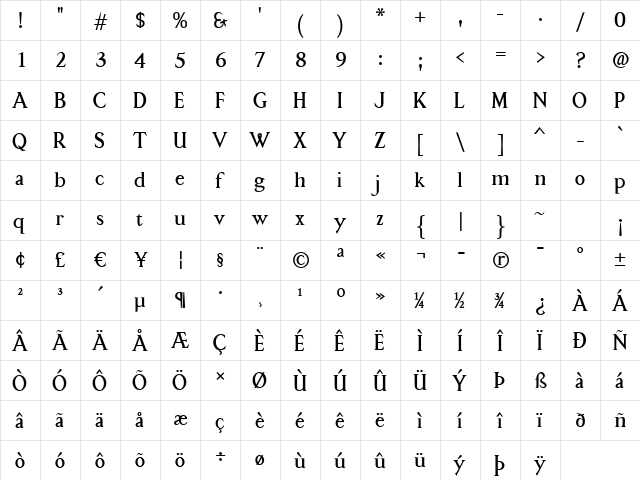
Anarcharsis Basic LF Bold
Design Context for Anarcharsis Basic LF Typeface
Anarcharsis Basic LF offers clean, dependable letterforms without strong stylistic allegiance, making it a practical choice for designers who need flexibility. Its bold stroke weight gives it real presence on the page.
Pro Tip: Pair Anarcharsis Basic LF with a font of contrasting weight or personality to build a more expressive typographic hierarchy.